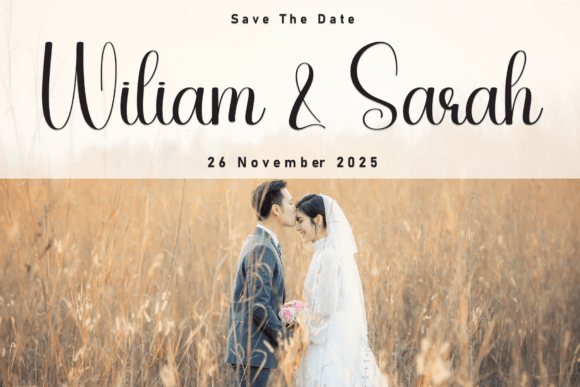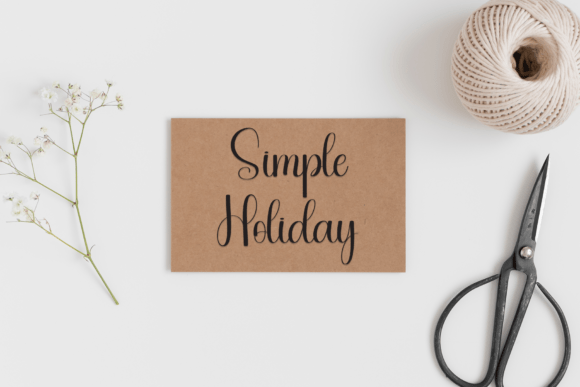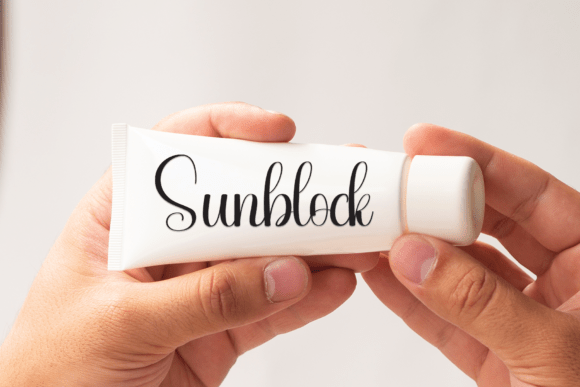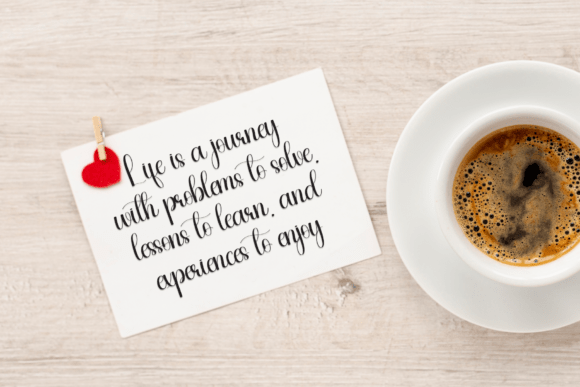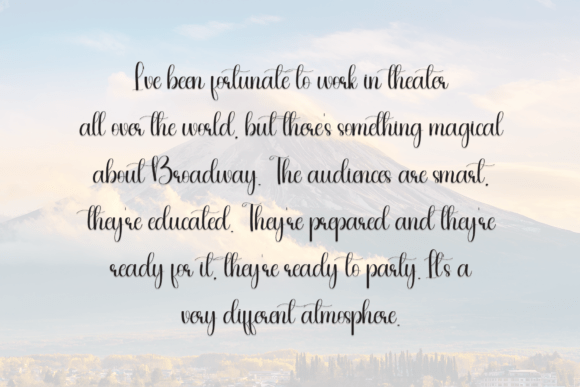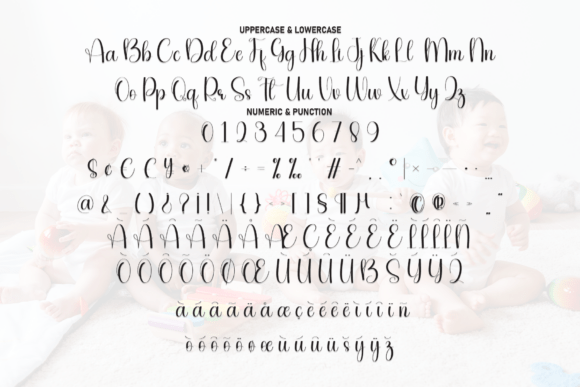
The Art of Beautiful Typography: Unveiling the Anybaby Font
Have you ever found yourself scrolling through a beautifully designed social media post or a stylish logo, and suddenly, you’re inspired to create something equally stunning? For many designers, this moment is the spark that ignites their creative journey. It’s a moment when the perfect font can elevate a design from good to great, and that’s exactly what the Anybaby Font is designed to do.
The Anybaby Font is a stylish script font that combines the elegance of hand-painted calligraphy with a modern twist. With its fluid brush strokes and dynamic curves, it’s perfect for adding a creative touch to logos, invitations, packaging, and social media graphics. As a valuable asset for designers, the Anybaby Font offers both visual impact and versatility, making it a must-have in any design arsenal.
Whether you’re a seasoned designer or just starting out, the Anybaby Font is sure to inspire your next creative project and help you bring your ideas to life with style and sophistication.
Anybaby Font Key Features
- Font Size and Style: The font family includes 6 weights (Thin, Light, Regular, Medium, Bold, Black) and 3 styles (Regular, Italic, Bold Italic), offering a range of options for designers.
- Unique Characteristics: Anybaby Font features a playful, handwritten style with a mix of round and angular shapes, making it perfect for creating a friendly and approachable atmosphere in designs.
Anybaby Font Review
I recently had the chance to dive into the Anybaby Font, and I’m here to give you the lowdown. Overall, it’s a solid choice for designers working on projects that need a playful, modern touch.
- Unique aesthetic: Anybaby Font brings a fresh perspective to typography, making it perfect for designers looking to add some personality to their work.
- Customizable: With a range of weights and styles, you can tailor the font to fit your project’s specific needs.
- Scalable: Whether you’re designing for print or digital media, Anybaby Font scales well and maintains its integrity.
- Limited language support: Anybaby Font might not be the best choice for projects that require extensive language support.
- Lack of bold weights: While the font offers various weights, it’s missing a bold weight, which can be limiting for certain design applications.
Overall, I think Anybaby Font is a great addition to any designer’s toolkit. While it has its limitations, its unique aesthetic and customizability make it a solid choice for projects that need a playful touch. Just be aware of its limitations, and you’ll be golden.
Getting the Most Out of Anybaby Font
Here are some tips to help you get the most out of Anybaby Font:
- Combine the Anybaby Font with other fonts to create a visually appealing design.
- Use the font for titles, headings, and body text to create a consistent look.